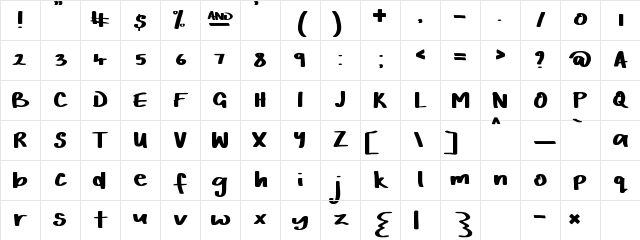
Snowblown Regular
Design Context for Snowblown
Snowblown is a composed and adaptable typeface that performs quietly and consistently across a wide range of design contexts.
Pro Tip: Use Snowblown in both headline and body roles to test its range before committing to a single application.